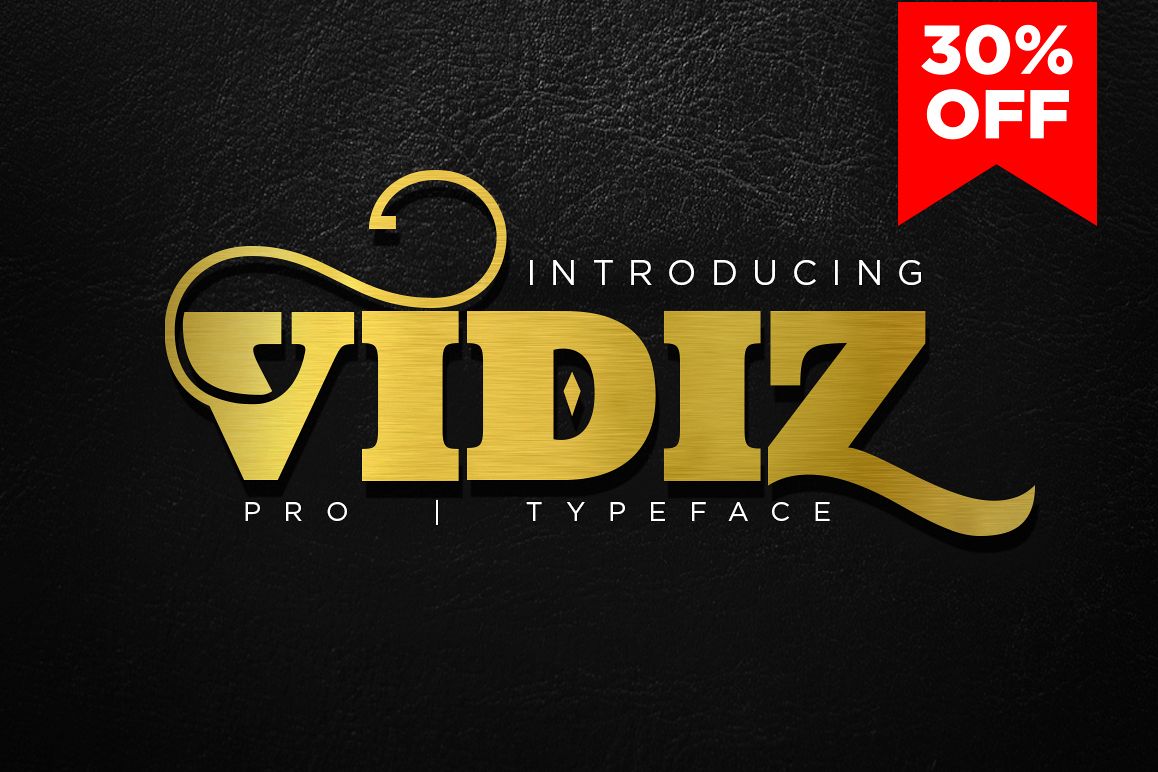
VIDIZ PRO Typeface
VIDIZ PRO Typeface is serif font designed to help you create the look of stunning on your work. Vidiz suitable for logo,poster, invitations, greeting cards, quotes, branding, name card, etcThe Features of this fonts is;
• Discretionary Ligatures
• Standart ligatures